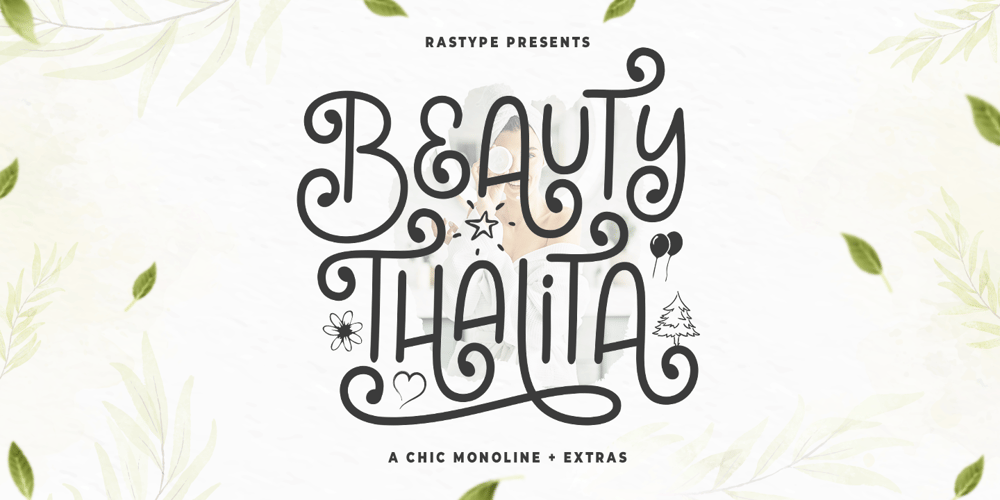
Beauty Thalita
Beauty Thalita font
Beauty Thalita Font Family was designed by Muhammad Taufik and published by Rastype Studio. Beauty Thalita contains 2 styles and family package options. Beauty Thalita and Extras are beautiful and modern fonts. Looks amazing on wedding invitations, thank you cards, birthday, tshirt desain, mothers day card, quotes, greeting cards, logos, business cards and any other design.This font is PUA encoded which means you can access all glyphs and swashes with ease!The font includes OpenType features with alternative styles, ligatures, and multiple language support.To enable OpenType Stylistic alternates, you need a program that supports OpenType features such as Adobe Illustrator CS, Adobe Indesign & CorelDraw X6-X7, Microsoft Word 2010 or a later version.There are additional ways to alternate / swash, using the Character Map (Windows), Nexus Font (Windows), Font Book (Mac) or a software program like PopChar (for Windows and Mac).How to access all alternative characters, using Windows Character Map with Photoshop: https://www.youtube.com/watch?v=Go9vacoYmBwHow to access all alternative characters using Adobe Illustrator:http://youtu.be/iptSFA7feQ0How to use a style font set in Microsoft Word 2010 or later versions:https://youtu.be/x1A_ilsBsGsHappy Designing!